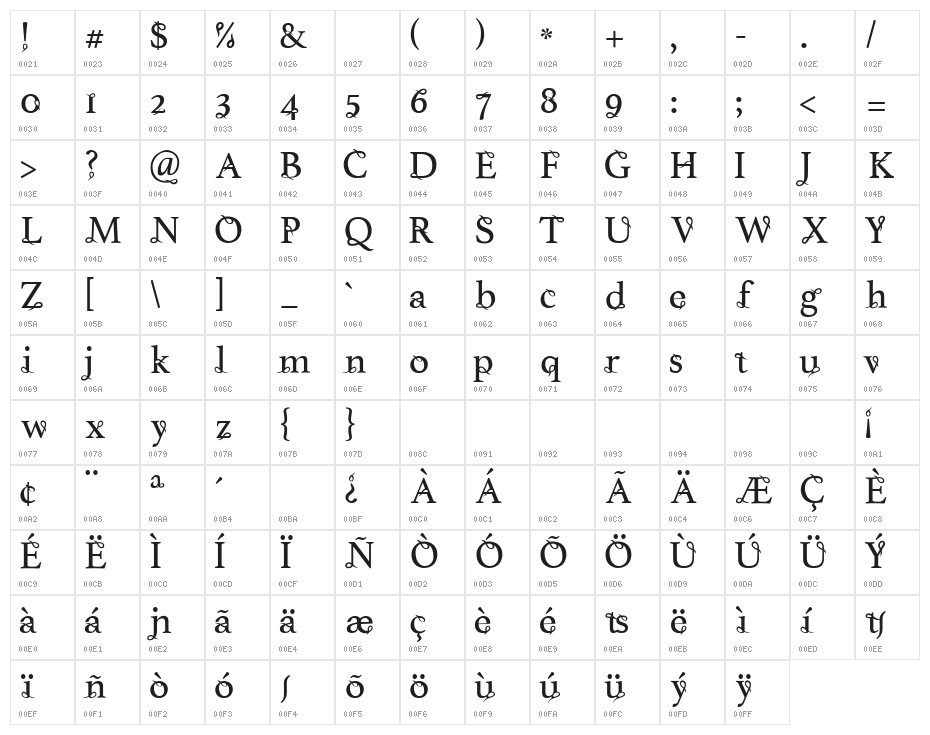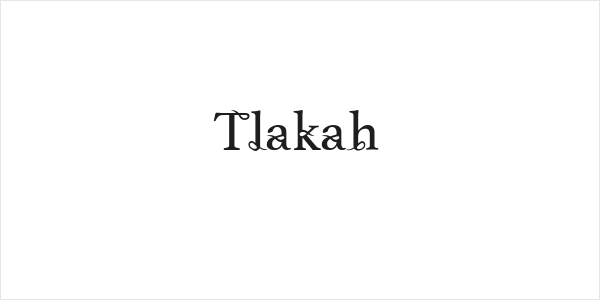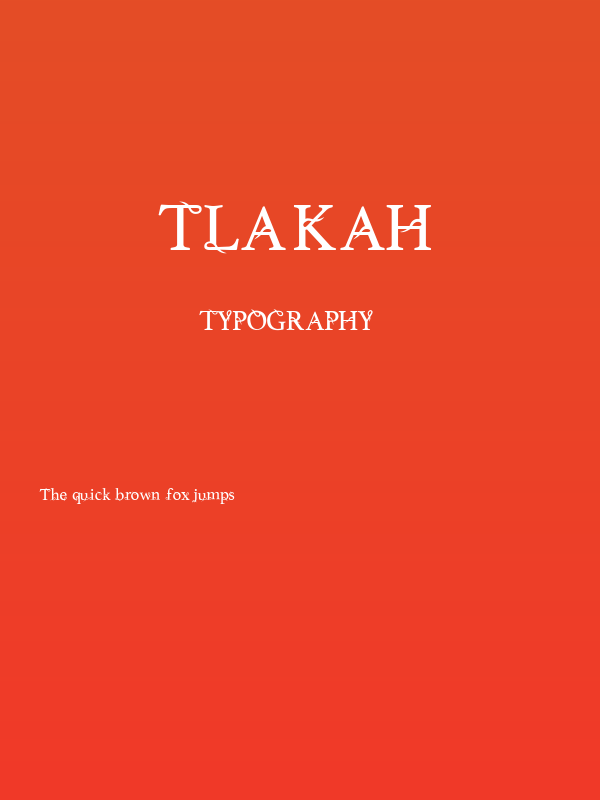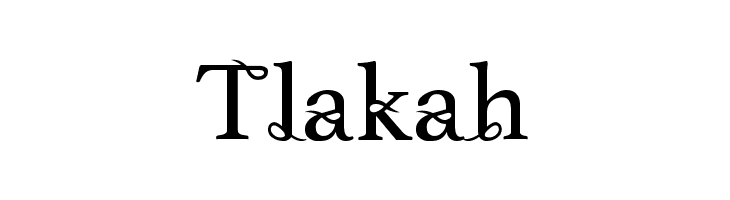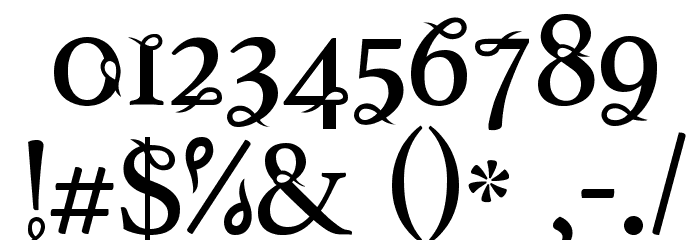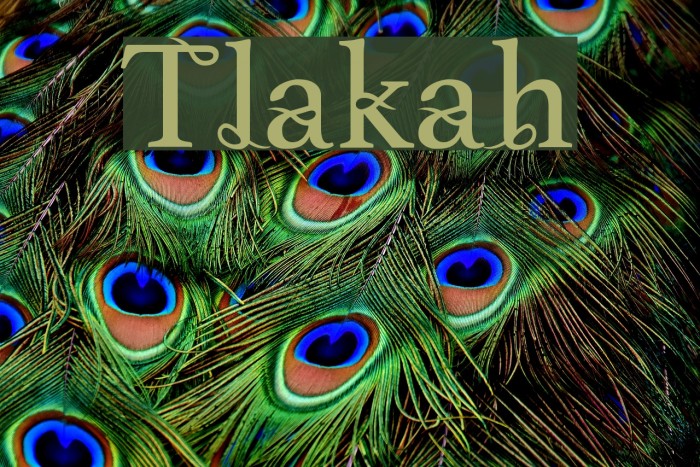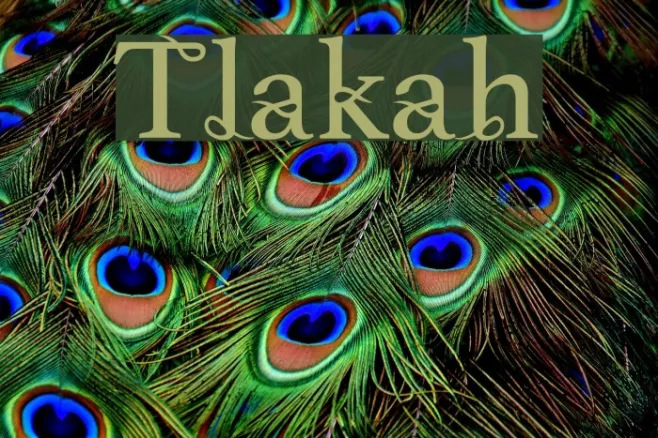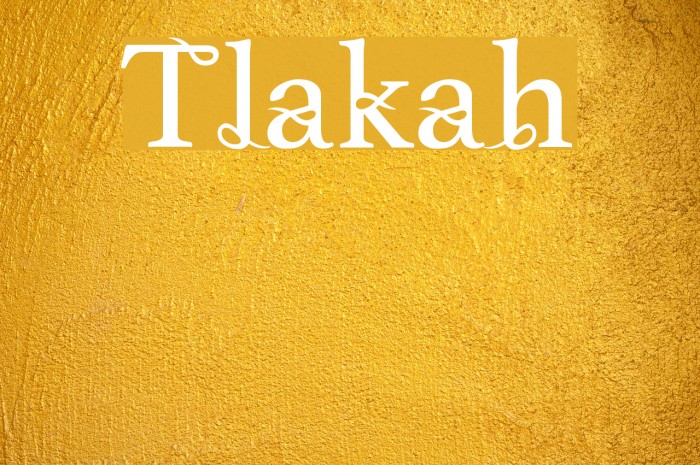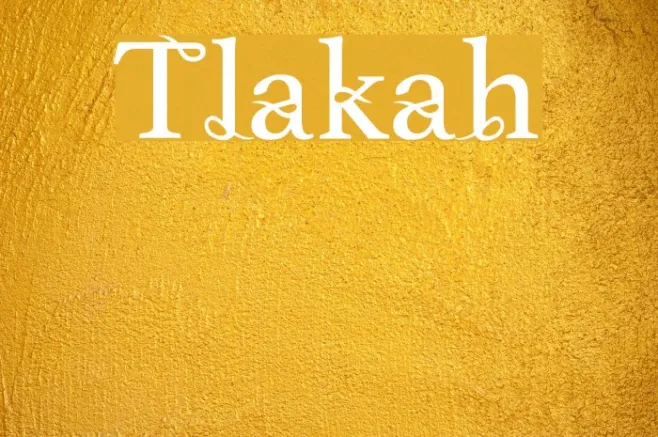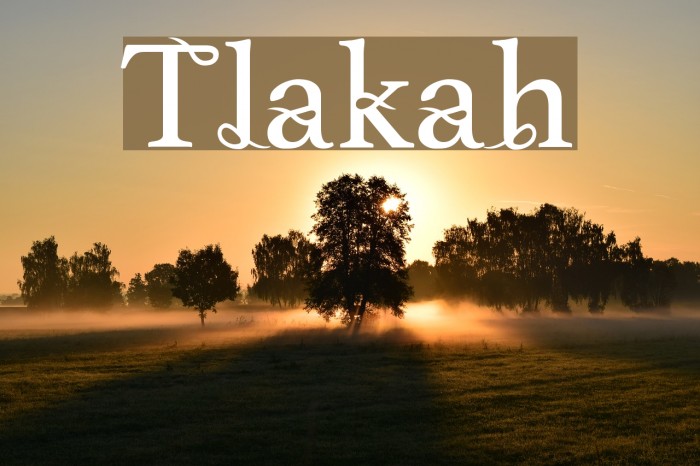
Tlakah Font
Tlakah Description
This font features a decorative and elegant style with intricate swirls and flourishes extending from the ends of each character. The uppercase letters are bold and commanding, while the lowercase letters maintain a consistent flow with a touch of whimsy. The numerals are distinct and easily readable, incorporating the same ornamental elements. Special characters are designed to complement the overall aesthetic, making this font suitable for artistic and creative projects. The balance between the decorative elements and readability is well-maintained, ensuring versatility in various design contexts.
| Proposed Projects | Ideal for wedding invitations, greeting cards, branding, and decorative posters. |